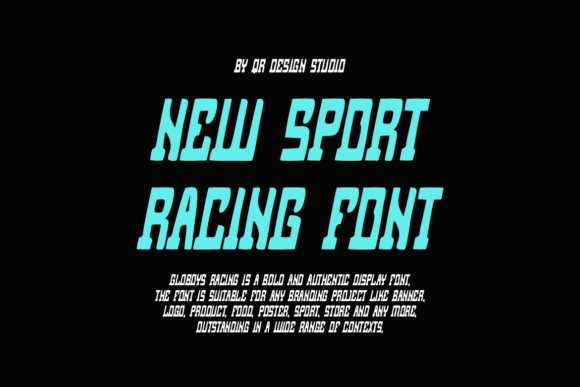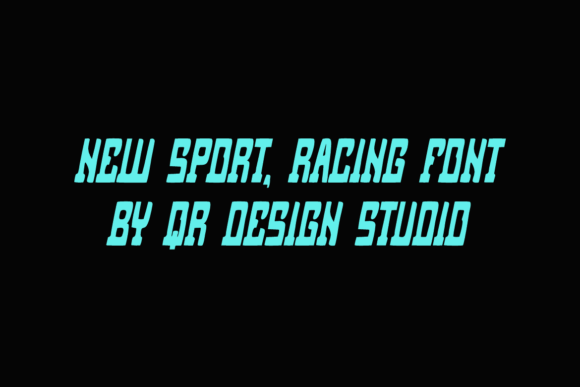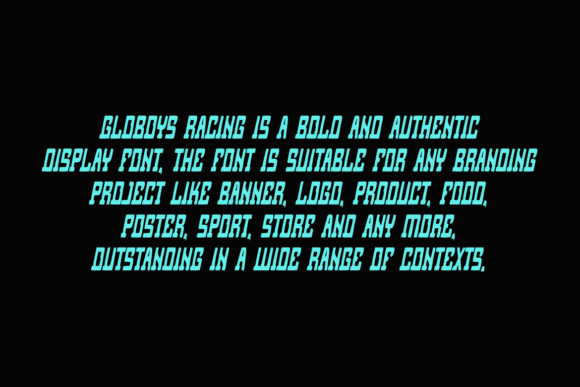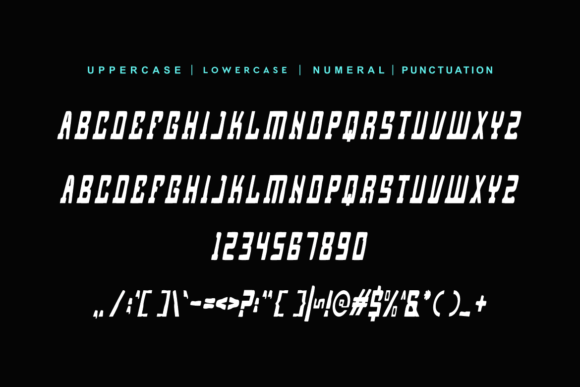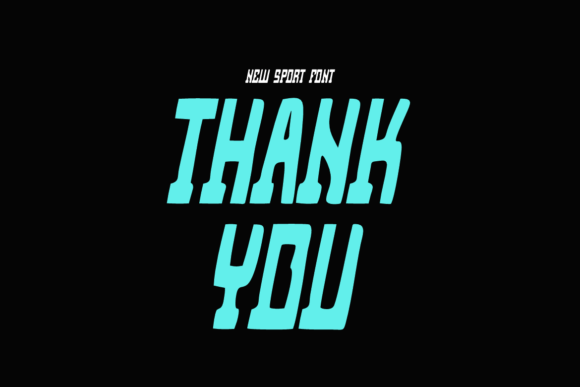
Discover the Unique Charm of Globoys Racing Font
Are you tired of using the same old fonts for your designs? Look no further than Globoys Racing Font, a decorative sans serif font that adds a touch of quirkiness to any project. With its unique and interesting design, this font is sure to make your work stand out in a crowd.
A Little Bit Quirky, A Lot of Character
Globoys Racing Font is a one-of-a-kind font that boasts a distinctive personality. Its sans serif design gives it a clean and modern look, while its quirky elements add a touch of playfulness. This font is perfect for designers and crafters who want to add some character to their work.
One of the best things about Globoys Racing Font is its versatility. This font looks incredibly adept on a wide variety of contexts, from bold headlines to subtle body text. Whether you’re designing a logo, creating a poster, or crafting a social media graphic, Globoys Racing Font is sure to make your work shine.
Globoys Racing Font is a must-have for designers and crafters who want to take their work to the next level. Whether you’re a professional designer or a hobbyist, this font is sure to inspire your creativity. Use it to create stunning visual effects, add a touch of whimsy to your designs, or simply to add some personality to your work.
Key Features of Globoys Racing Font
- Unique and interesting design: Globoys Racing Font boasts a distinctive personality that sets it apart from other fonts.
- Quirky and playful: This font adds a touch of whimsy to any design, making it perfect for projects that require a bit of personality.
- Versatile: Globoys Racing Font looks great in a wide variety of contexts, from bold headlines to subtle body text.
How to Use Globoys Racing Font
- Use it as a headline font: Globoys Racing Font is perfect for bold headlines and titles.
- Add it to your branding: Use Globoys Racing Font to add a touch of personality to your brand’s identity.
- Experiment with different colors: This font looks great in a variety of colors, so don’t be afraid to experiment and find the perfect hue for your design.
Globoys Racing Font is a unique and interesting decorative sans serif font that’s sure to add a touch of quirkiness to any design. With its versatility, ease of use, and distinctive personality, this font is a must-have for designers and crafters. So why wait? Download Globoys Racing Font today and start creating stunning designs that stand out from the crowd!
- What is Globoys Racing Font?
- Globoys Racing Font is a decorative sans serif font with a unique and interesting design.